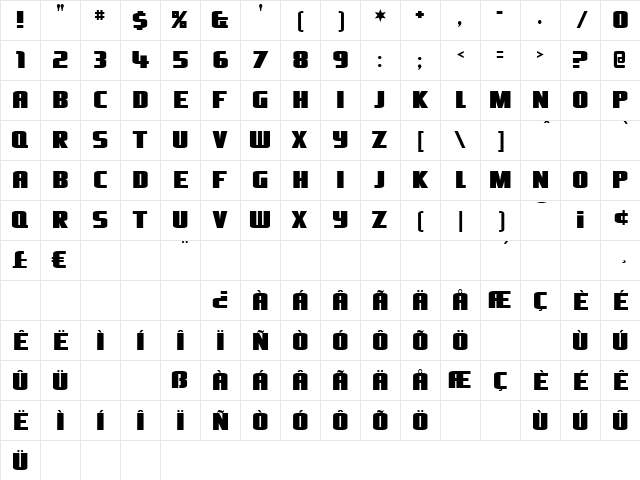
Oliver's Barney Regular
Design Context for Oliver's Barney Typeface
Oliver's Barney is a composed and adaptable typeface that performs quietly and consistently across a wide range of design contexts.